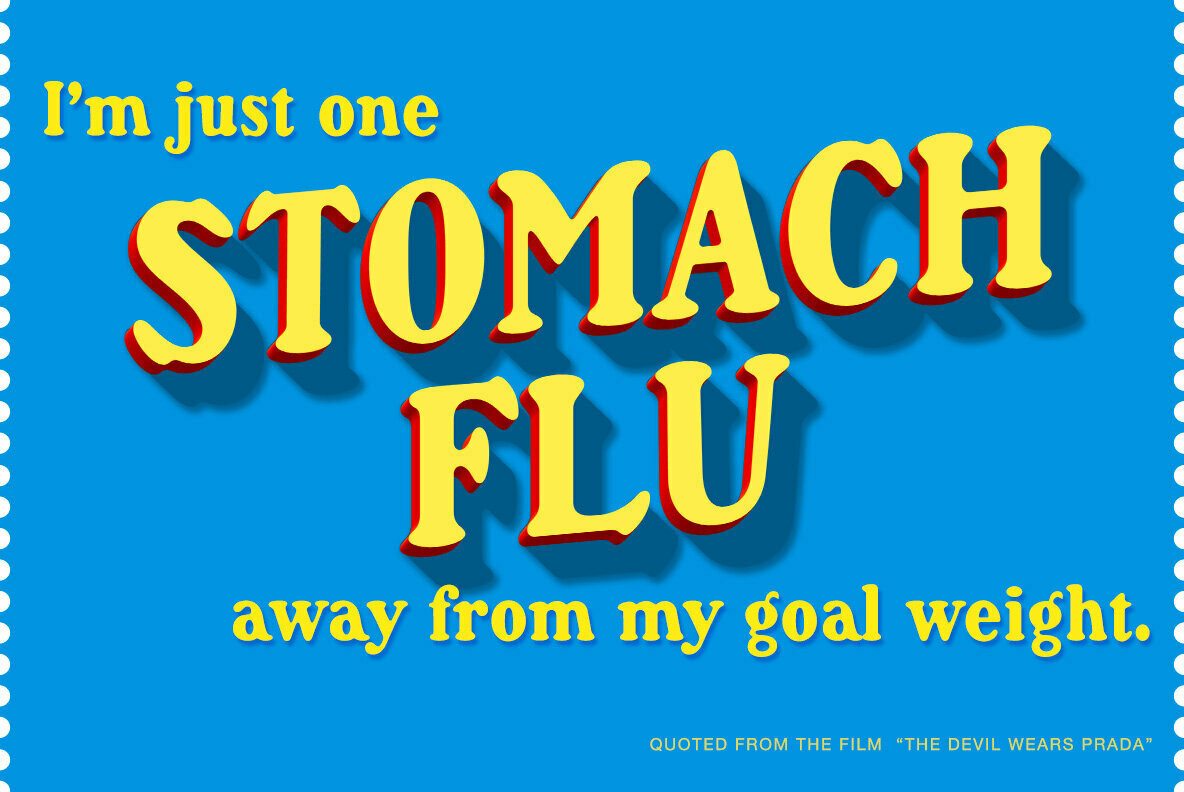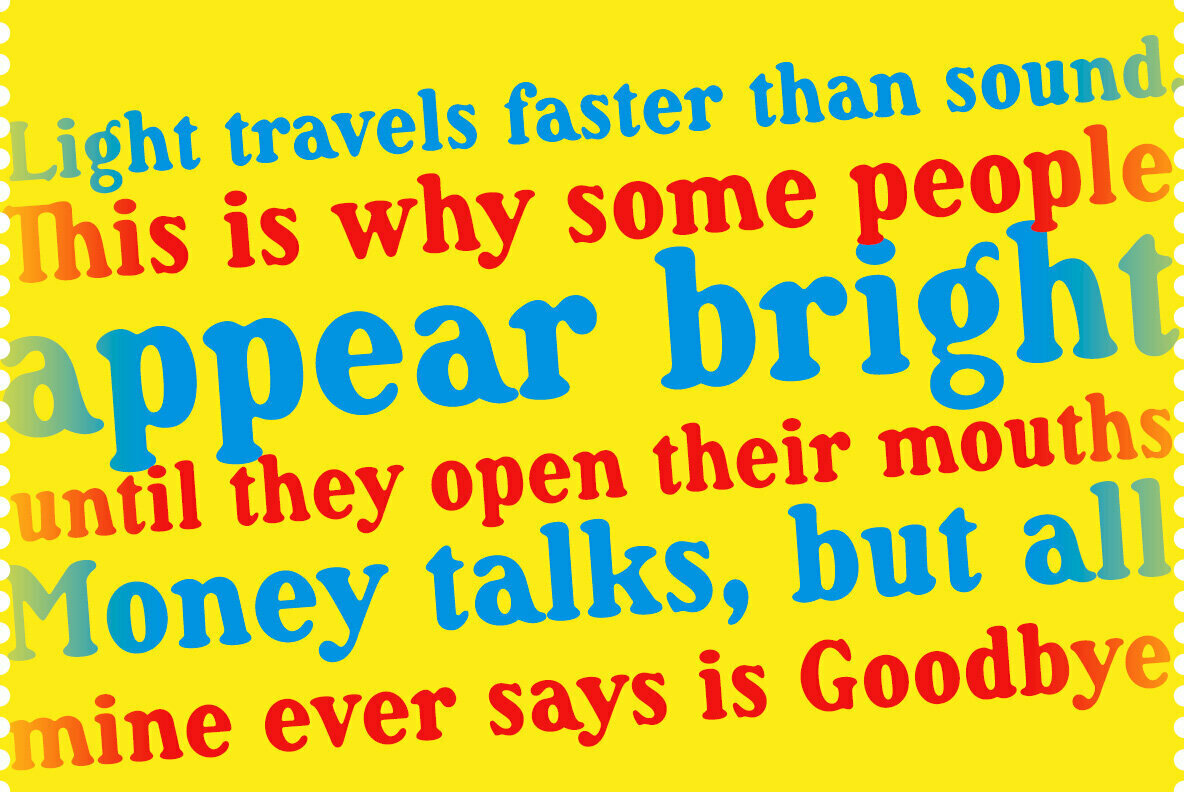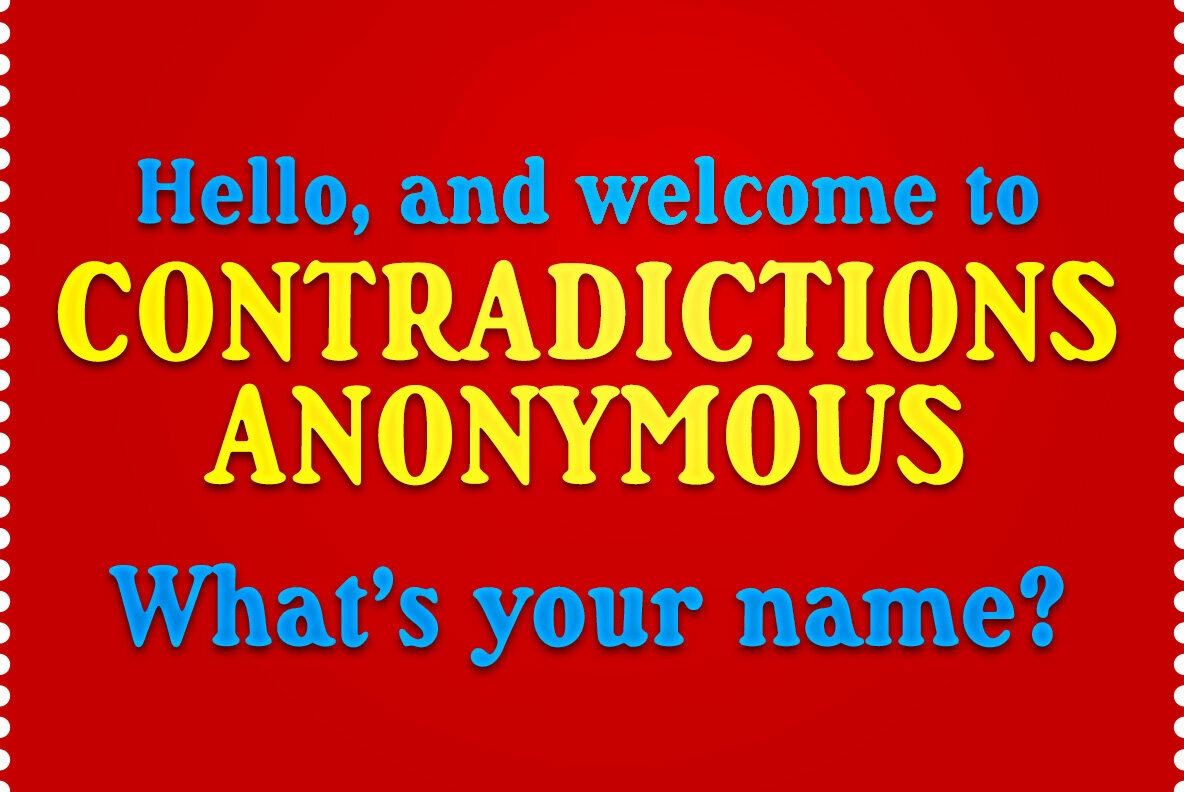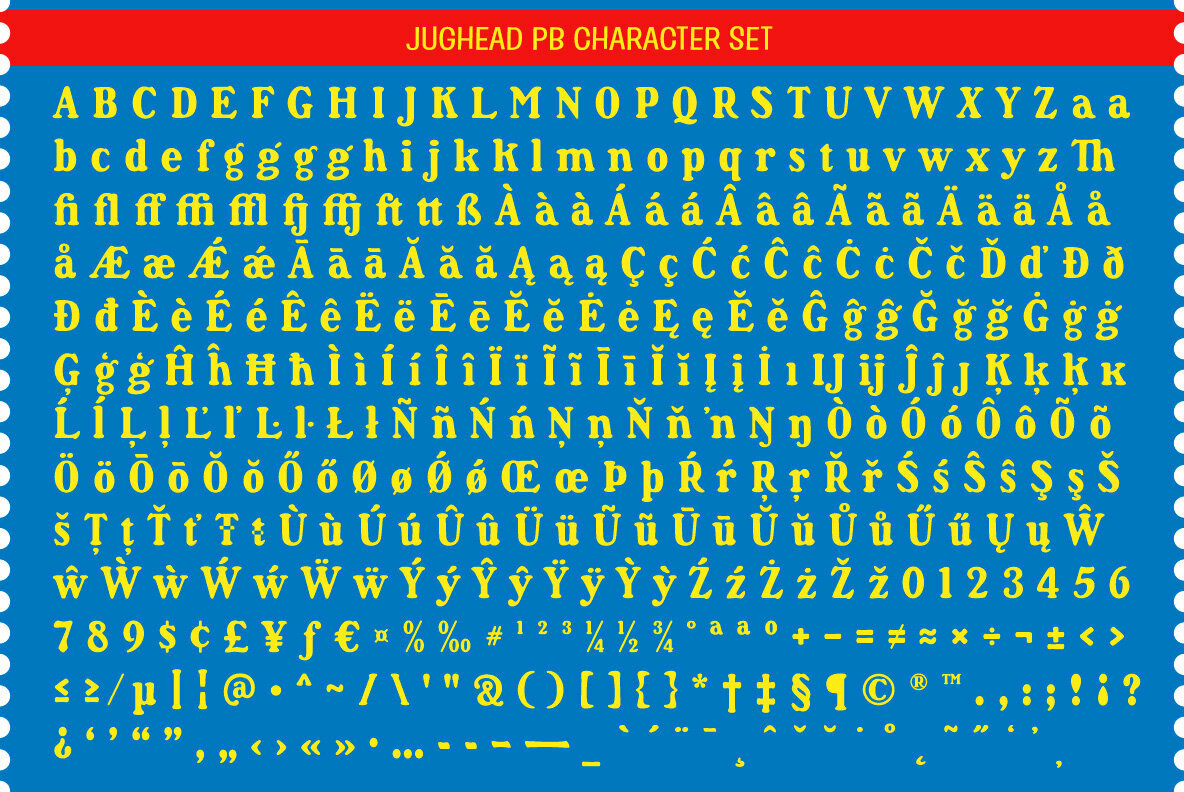
Jughead PB Font
Jughead PB is a classic vintage typestyle reminiscent of Archie Comics, and other retro comics and ads. Jughead PB began as a digitization of a film typeface known as Post Condensed by LetterGraphics, perfect for typesetting early children books, candy packaging, toy packaging, birthday invitations, and beyond. It's a bit like Cooper, while having a looser, more feel.
Jughead is familiar, while being different, and a friendly feel without being too offbeat or eccentric. Try it out in your designs to take advantage of that deja vu connection.